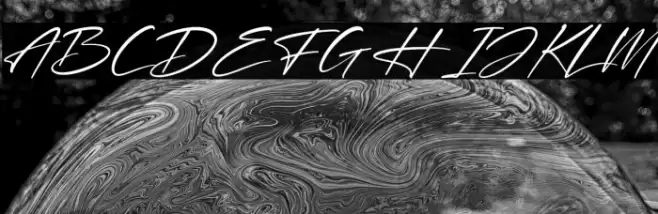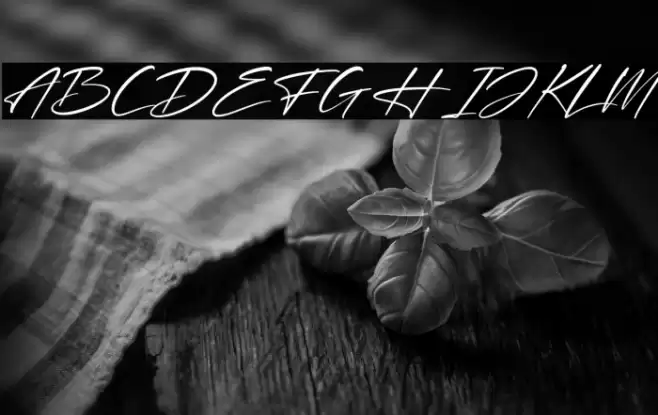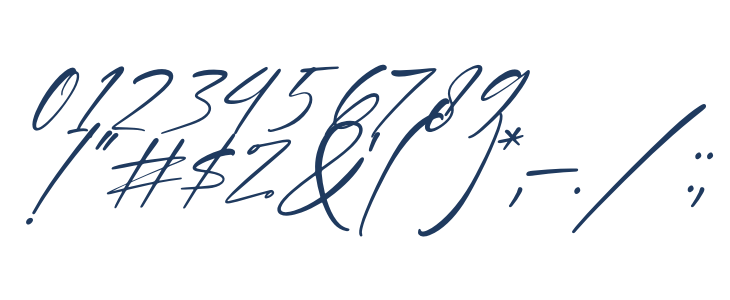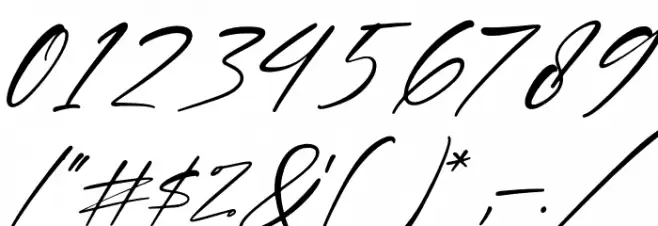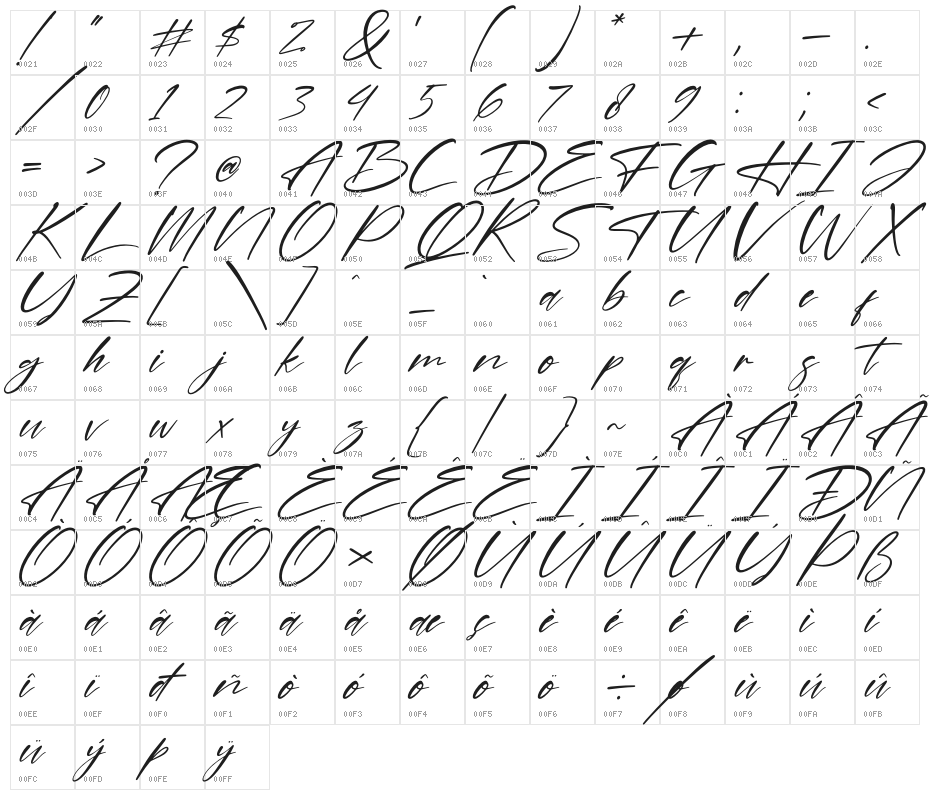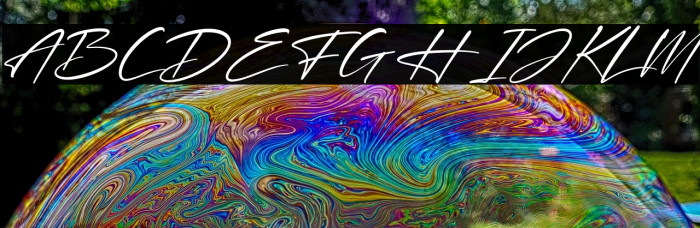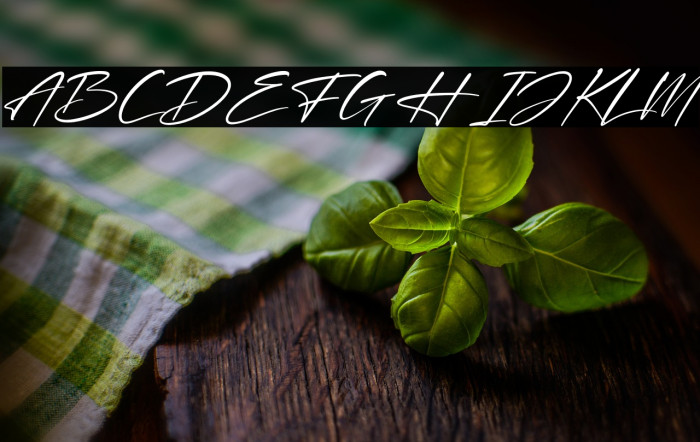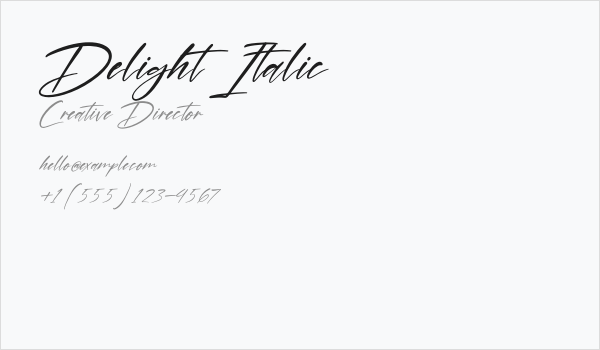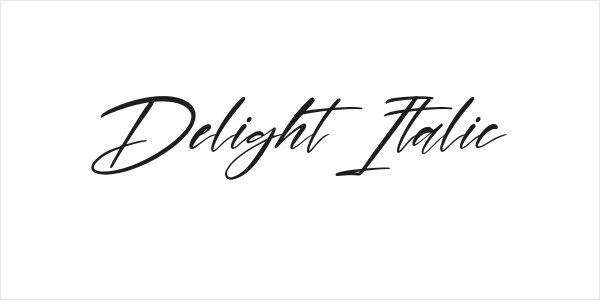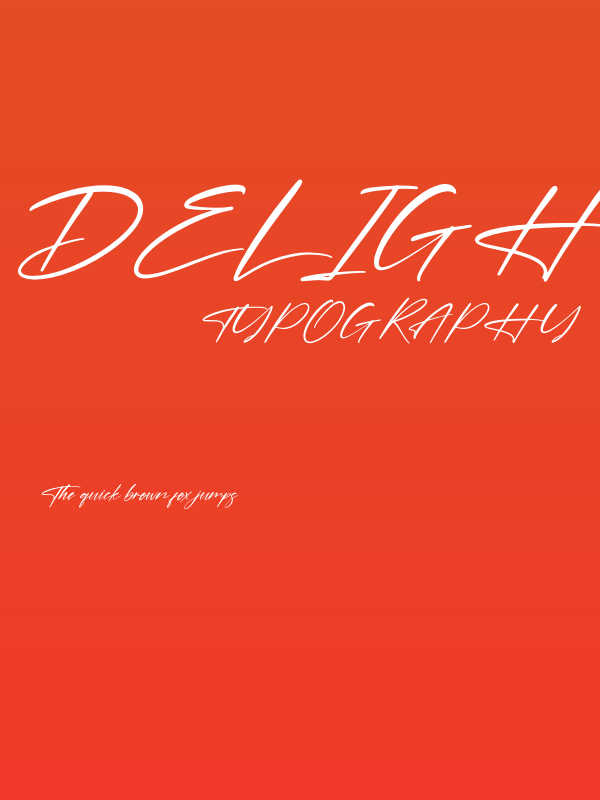
Delight Italic Font
Delight Italic Description
This font features an elegant, flowing script style that mimics the fluidity of cursive handwriting. The characters are connected, creating a seamless and continuous look. The uppercase letters are slightly more ornate, with flourishes that add a touch of sophistication. The lowercase letters maintain a consistent slant, enhancing the italicized appearance. The numbers and special characters follow the same stylistic cues, ensuring uniformity across all glyphs. This font exudes a sense of grace and refinement, making it suitable for formal and decorative applications.
An elegant, flowing script font with a cursive, italicized style from Uncategorized fonts.
- Font: Delight Italic
- Proposed Projects: Ideal for wedding invitations, elegant branding, greeting cards, and decorative headings.
- Character Spacing: Tight
- Use Case: Logos, Invitations, Decorative text